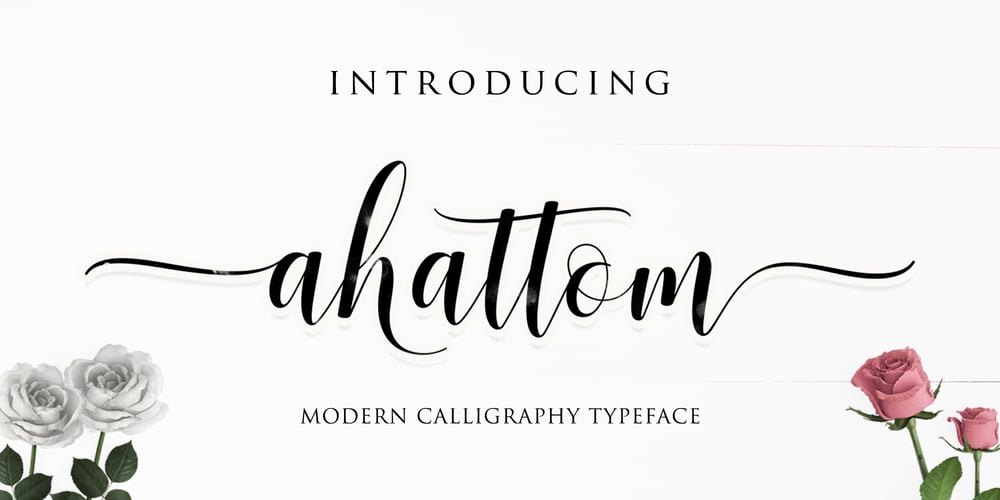
Ahattom Script Font Family was designed by Barmawi and published by Creative Lafont. Ahattom Script contains 1 styles and family package options. Ahattom is modern script font, every single letters have been carefully crafted to make your text looks beautiful. With modern script style this font will perfect for many different project, e.g : quotes, blog header, poster, wedding, branding, logo, fashion, apparel, letter, invitation, stationery, etc.Ahattom including alternate glyphs and beautiful swirl in a font including stylistic sets, Ligatures etc. The Open Type features can be accessed by using Open Type savvy programs such as Adobe Illustrator CS, Adobe Indesign & CorelDraw X6-X7 and Microsoft Word. And this Font has given PUA unicode (specially coded fonts). so that all the alternate characters can easily be accessed in full by a craftsman or designer.Files Include :- Ahattom ScriptFeatures:- Basic Latin A-Z and a-z- Numbers & Symbols – Stylistic Set &Ligature- PUA Encode- Latin Pro Support CharacterIn order to use the beautiful swashes, you need a program that supports OpenType features such as Adobe Illustrator CS, Adobe Photoshop CC, Adobe Indesign and Corel Draw.Thanks for looking and happy designing ๐